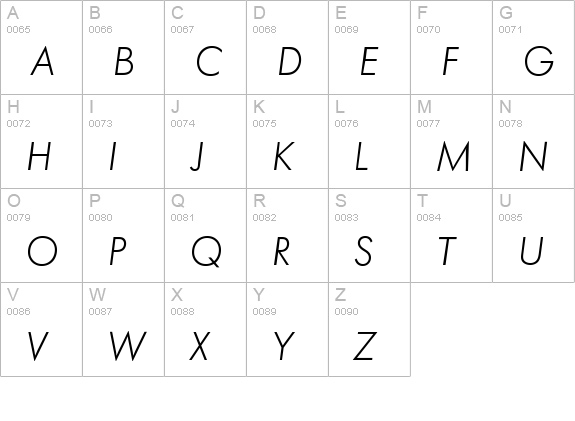
Futura BQ Light Oblique Font Details
Futura BQ Light Oblique is a refined, elegant, italic variant in the Futura typeface family \xE2\x80\x94 well suited to elegant body text, refined sub-headings, and luxury branding.
Futura BQ Light Oblique is a sleek and modern typeface that exudes elegance and sophistication. Its slanted form adds a dynamic touch to any design, making it perfect for conveying a sense of movement and energy. The combination of light weight and oblique style gives this font a unique and stylish look that is perfect for a variety of applications. And the best part is, Futura BQ Light Oblique is available for free download at FontsMarket.com! This means you can easily add this versatile font to your collection without any cost. Whether you're working on branding, advertising, editorial design, or any other project, Futura BQ Light Oblique is sure to make a statement and elevate your design to the next level. Download it now and unleash your creativity with this stunning typeface.